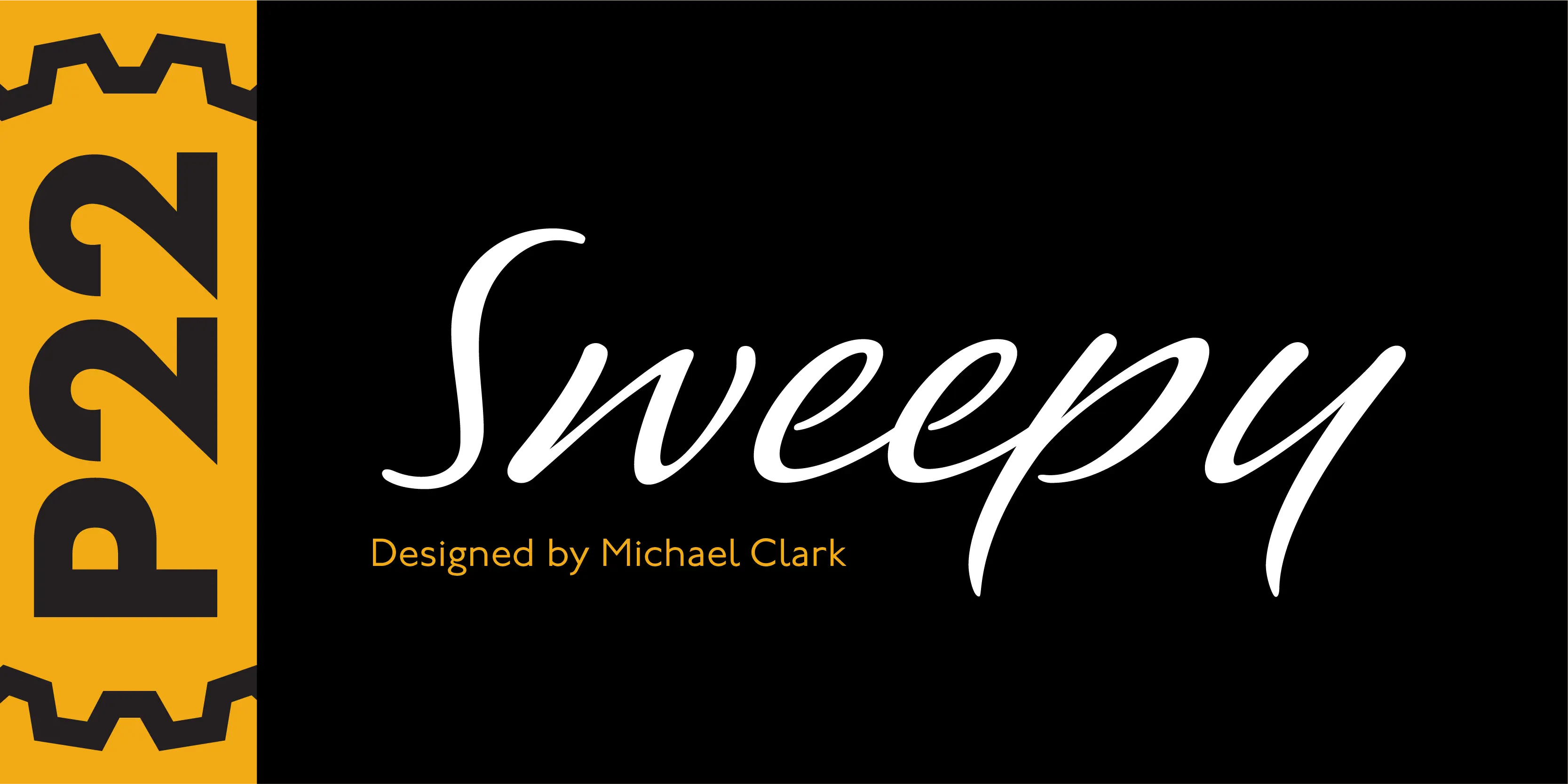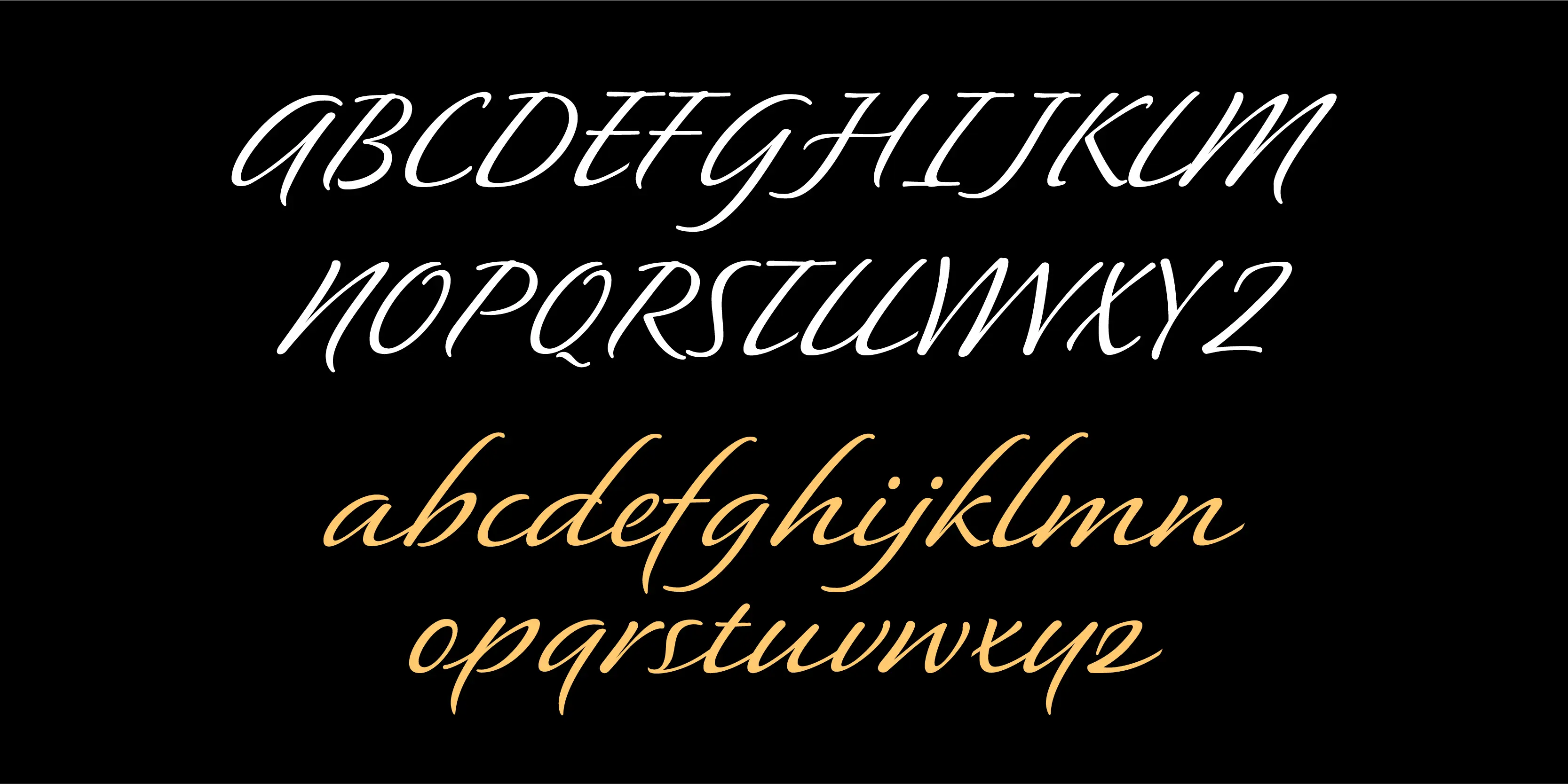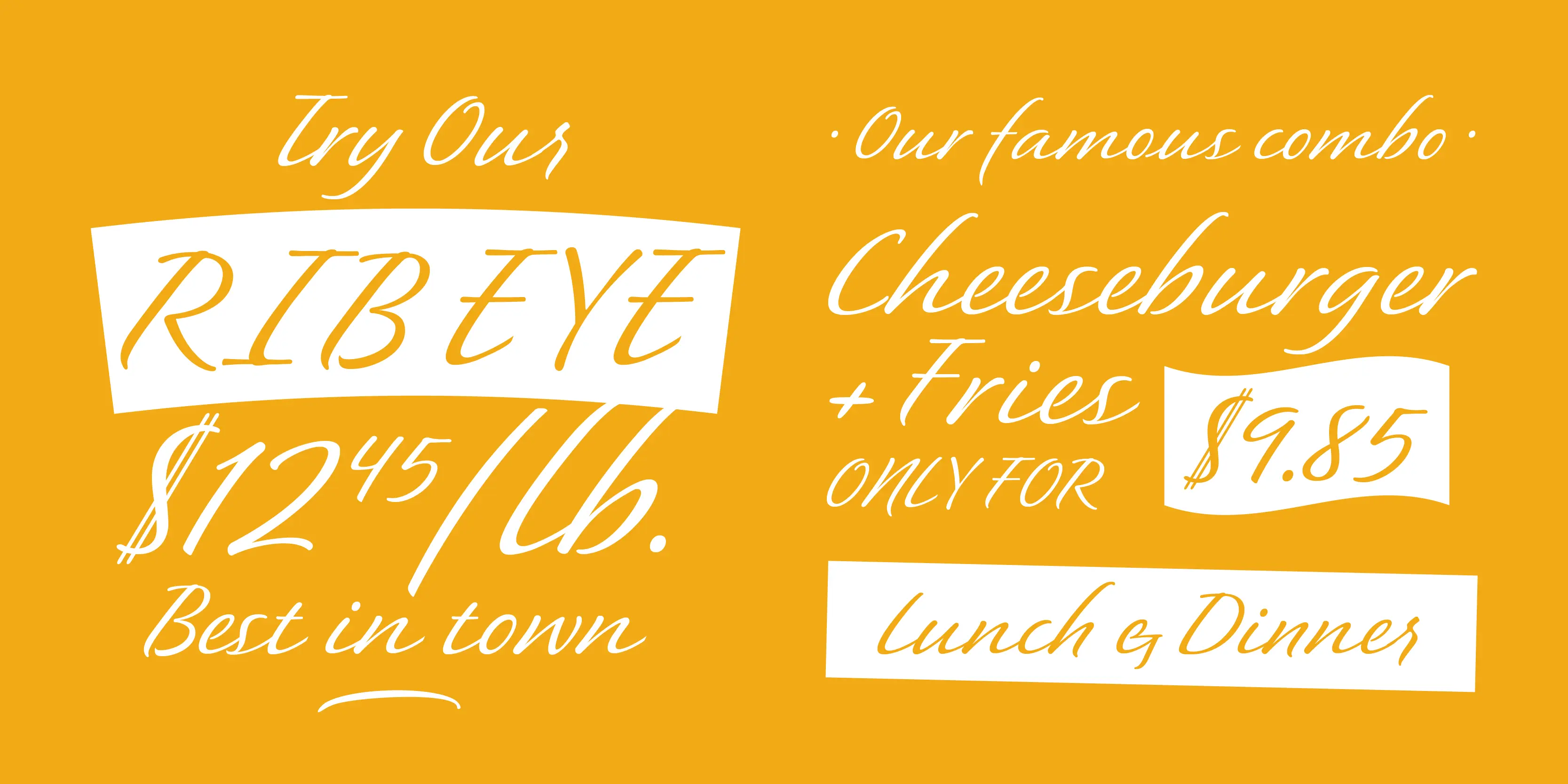
Sweepy Font
Sweepy
Long awaited and somewhat de-weighted…a lighter, and connecting version of Pooper Black. Sweepy is a brush script that is casual and fluid. In the expanded OpenType version Sweepy is loaded with alternate characters and ligatures that offer more flexible lettering options. Great for many uses. Sweepy Basic includes 230 glyphs Sweepy Pro includes 462 glyphs